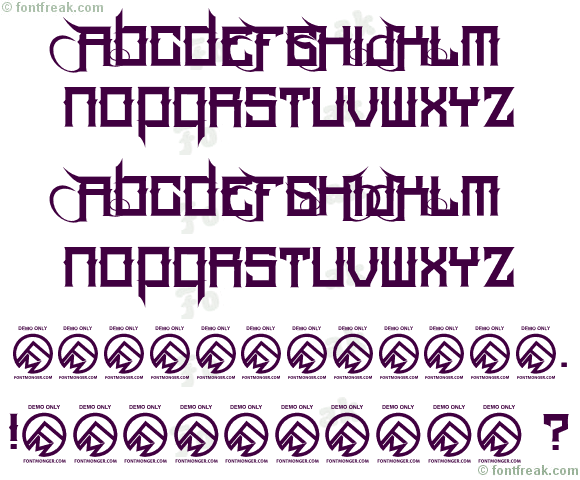
HoodRich-Regular
About HoodRich-Regular
HoodRich-Regular by Chris Vile is a striking display font that exudes a unique blend of urban flair and artistic expression. This font falls under the decorative category, making it a perfect choice for projects that require a bold and eye-catching typeface. Its visual characteristics include a strong stroke weight, which contributes to its commanding presence, alongside intricate decorative elements that add an edgy, contemporary vibe. The spacing between the letters is thoughtfully designed, ensuring readability while maintaining a stylish appearance.
This font is particularly well-suited for a variety of creative applications. It shines in contexts such as streetwear branding, where its bold aesthetic can complement logo designs and promotional materials. Additionally, HoodRich-Regular is an excellent choice for movie posters, especially in genres like action or drama, where it can effectively capture attention. Restaurant menus aiming for a modern and trendy look can also benefit from its unique style, as can event flyers that seek to convey a sense of excitement and originality.
Target audiences for HoodRich-Regular include graphic designers looking to add a distinctive touch to their projects, small business owners seeking to establish a memorable brand identity, and content creators who want to enhance their visual storytelling.
What sets HoodRich-Regular apart is its ability to combine artistic flair with functionality. While it captures the essence of contemporary urban culture, it remains versatile enough to adapt to various creative needs. For those looking for a distinctive typeface that makes a statement, the HoodRich-Regular font free download offers an opportunity to elevate any design project with its dynamic presence and creative potential.